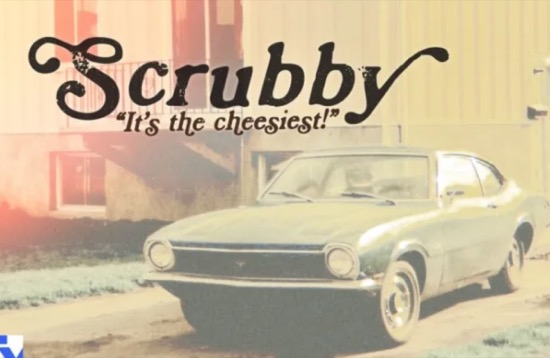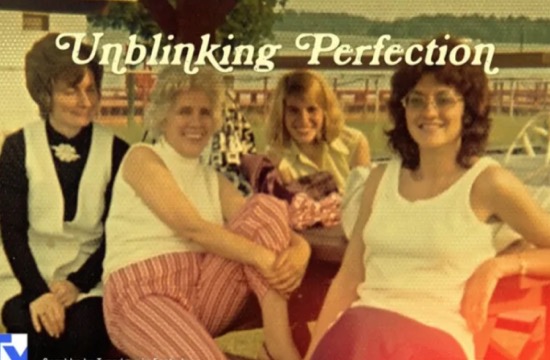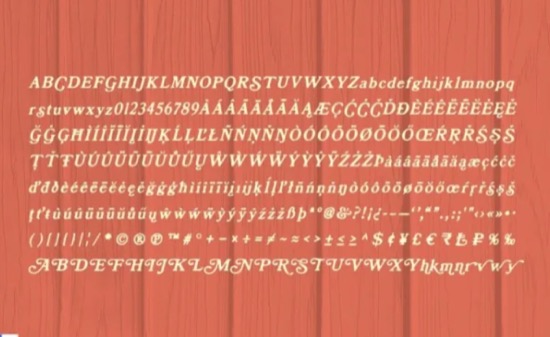
Lumosky is a classic and retro display font that breathes craftsmanship and the spirit of creativity into every letter. Its rugged, vintage Western look blends seamlessly with cool, gothic styles, creating a unique yet sophisticated look.
Scrubby Classic Display Font
Name: Scrubby